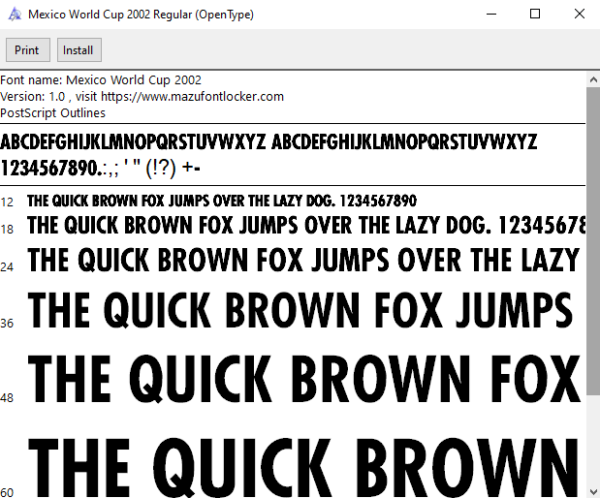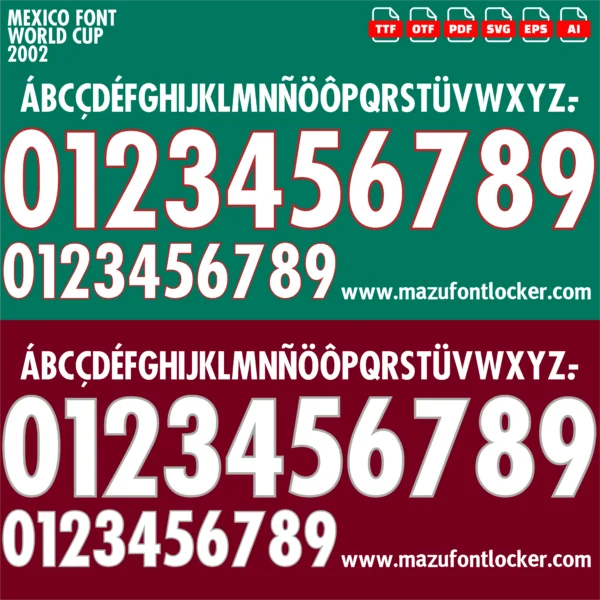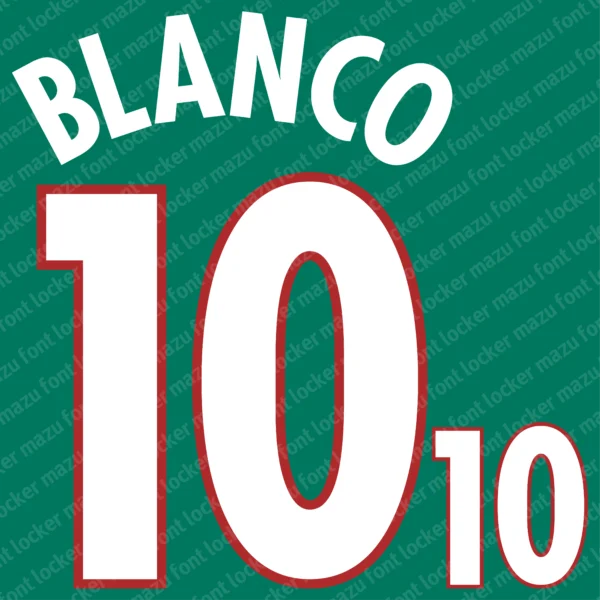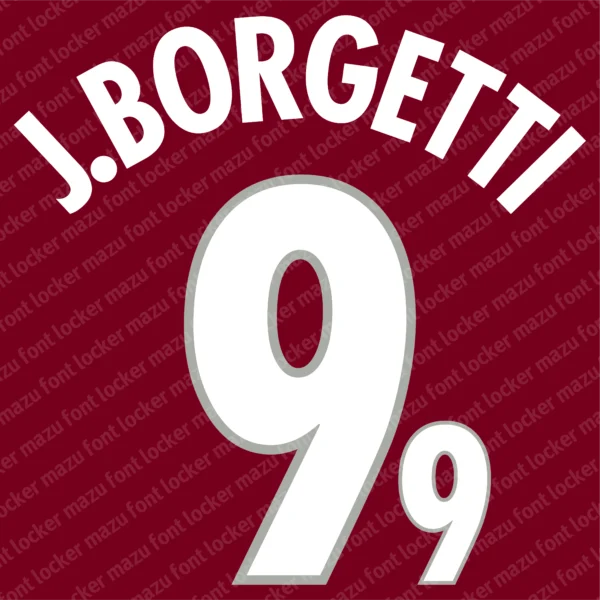
Mexico World Cup 2002 Font Vector – Epic Green Aztec Passion Masterpiece
This premium font captures the commanding, iconic, majestic, and battle-ready lettering that embodies the unstoppable Mexican spirit — delivering raw Aztec fire, explosive winning energy, relentless never-say-die mentality, tactical supremacy, and legendary El Tri warrior grit.
Mexico World Cup 2002 Font Vector – Authentic El Tri Typeface
The Mexico World Cup 2002 Font Vector is a premium typeface that captures the official match lettering style used by the Mexico national team during the 2002 FIFA World Cup. This high-quality vector font kit reflects the bold, vibrant, and passionate typography that represents the pride, energy, and rich football heritage of El Tri.
Designed for professional designers and passionate Mexico fans, the Mexico World Cup 2002 Font Vector delivers perfect authenticity for creating realistic jersey mockups, fan merchandise, matchday posters, social media graphics, and retro football content. It pairs beautifully with the iconic green home kit featuring the famous Mexico crest.
Why Choose Mexico World Cup 2002 Font Vector
This font stands out because of its sharp vector precision and strong national identity. Every letter and number is crafted to match the exact style used by El Tri during the 2002 World Cup in Korea and Japan. Whether you are making realistic retro kit templates or exciting Mexico content, the Mexico World Cup 2002 Font Vector gives your designs that authentic El Tri look.
The letterforms in the Mexico World Cup 2002 Font Vector are tall, bold, and highly readable. The strokes have a strong, clean weight with excellent edge definition that looks powerful on the back of jerseys while maintaining the classic Mexican spirit and vibrant energy of the 2002 campaign.
• Full uppercase A–Z and numbers 0–9 in authentic Mexico World Cup 2002 style
• Create highly realistic Mexico World Cup 2002 home and away jersey mockups with accurate lettering
• Design stunning retro match posters, score graphics, and squad announcements
• Produce custom Mexico merchandise with the iconic 2002 aesthetic
Mexico 2002 World Cup Campaign
The Mexican national team delivered a memorable performance at the 2002 FIFA World Cup, advancing to the Round of 16 with passion and flair. Coached by Javier Aguirre, El Tri showcased their trademark attacking style and fighting spirit on the biggest stage. Stars like Cuauhtémoc Blanco, Rafael Márquez, and Jorge Campos became legends of that golden generation.
The Mexico World Cup 2002 Font Vector is an independently designed typeface package. It is carefully crafted to replicate the official shirt lettering style used during the 2002 FIFA World Cup. This font kit is perfect for creative projects, fan edits, nostalgic jersey designs, and retro football graphics.